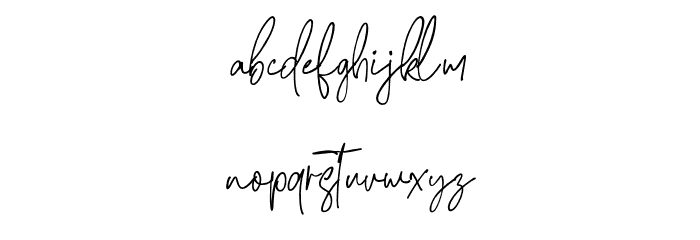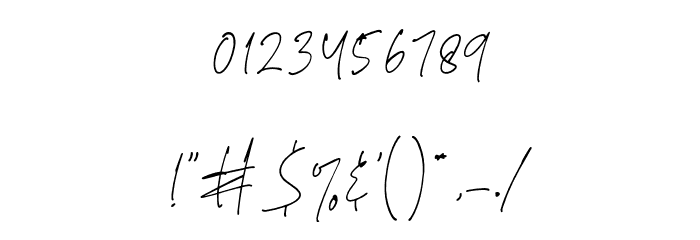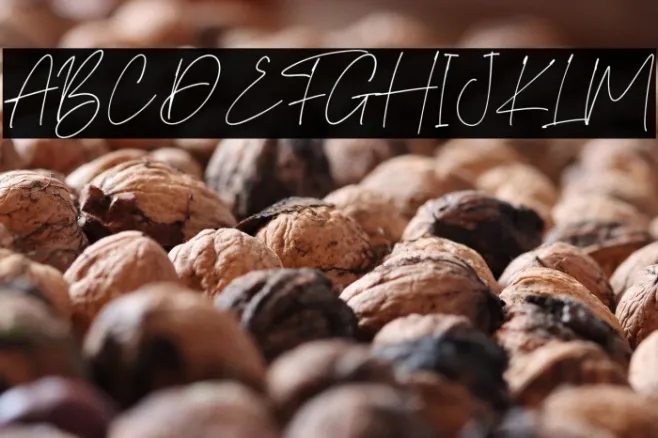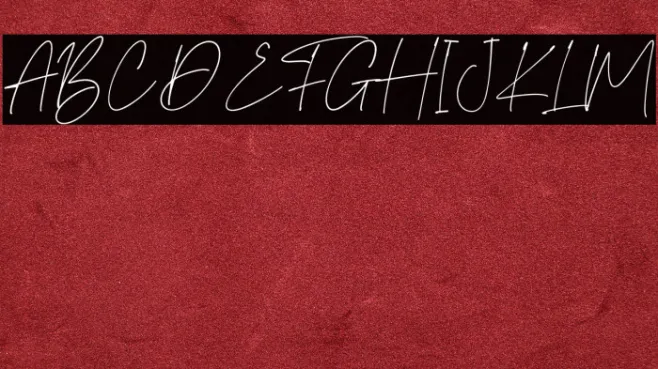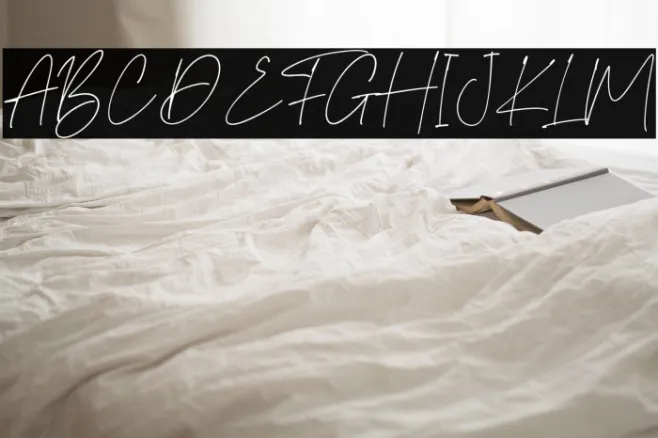
SummerPisces Font
This font exudes a casual and elegant handwritten style, characterized by its fluid and organic strokes. The uppercase letters are tall and slightly narrow, with a graceful flow that suggests a personal touch. The lowercase letters maintain a consistent rhythm, with some letters featuring playful loops and curves. The numerals are clear and complement the overall style, while the special characters blend seamlessly with the alphabet. The font's overall appearance is both sophisticated and approachable, making it suitable for a variety of creative projects.
A casual, elegant handwritten font with fluid strokes and playful loops.
- Font: SummerPisces
- Proposed Projects: Ideal for wedding invitations, personal branding, greeting cards, and social media graphics.
- Category: Handwritten
- Use Case: Logos, Headlines, Invitations